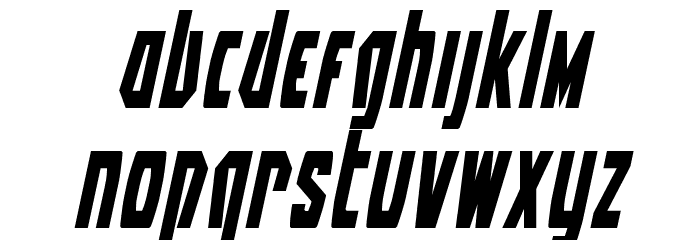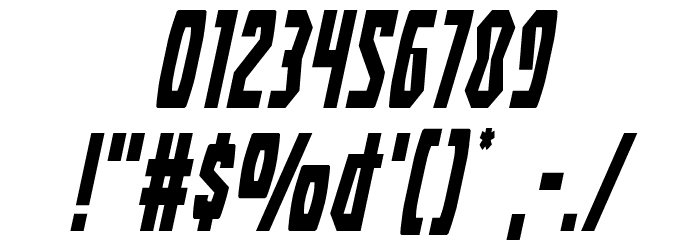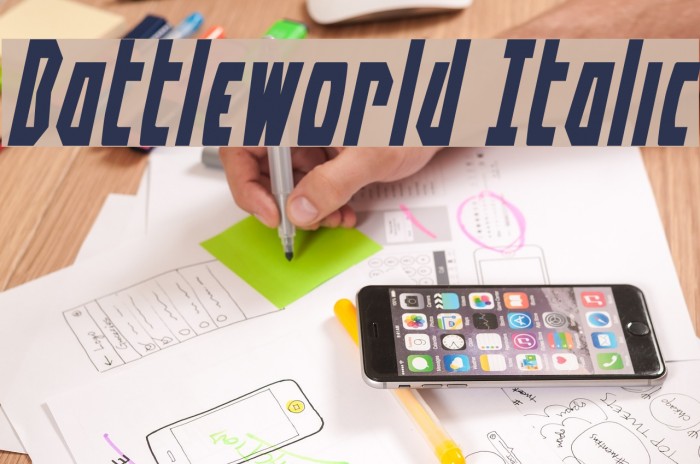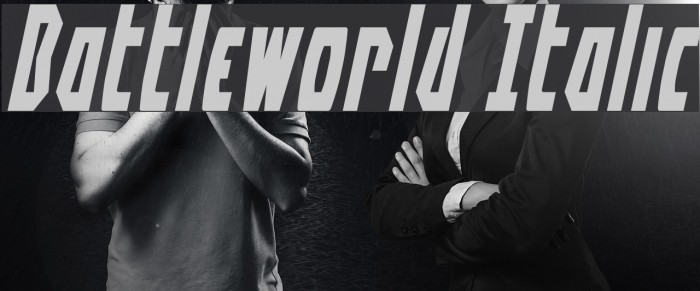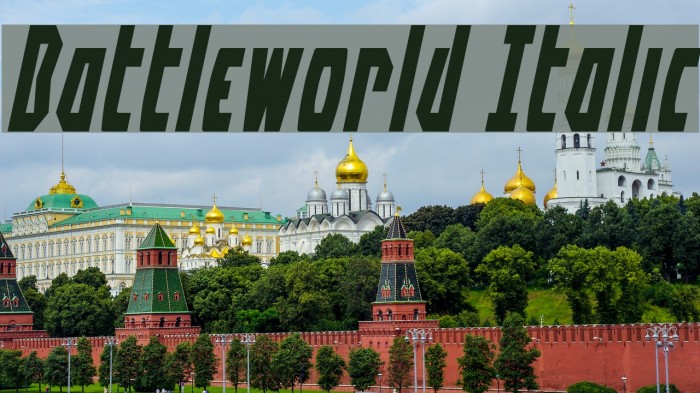
Battleworld Italic Font
This font exhibits a bold and dynamic style with a strong italic slant, giving it a sense of motion and energy. The characters are angular and sharp, with a futuristic and aggressive appearance. The uppercase and lowercase letters maintain a consistent design, emphasizing vertical height and narrow width. The numbers and special characters follow the same stylistic approach, ensuring uniformity across all glyphs. The font's design is suitable for projects that require a bold statement or a modern, edgy look.
A bold, italic font with angular, futuristic design.
- Proposed Projects: Ideal for video game titles, movie posters, sports branding, and any project needing a dynamic and modern aesthetic.
- Character Spacing: Tight